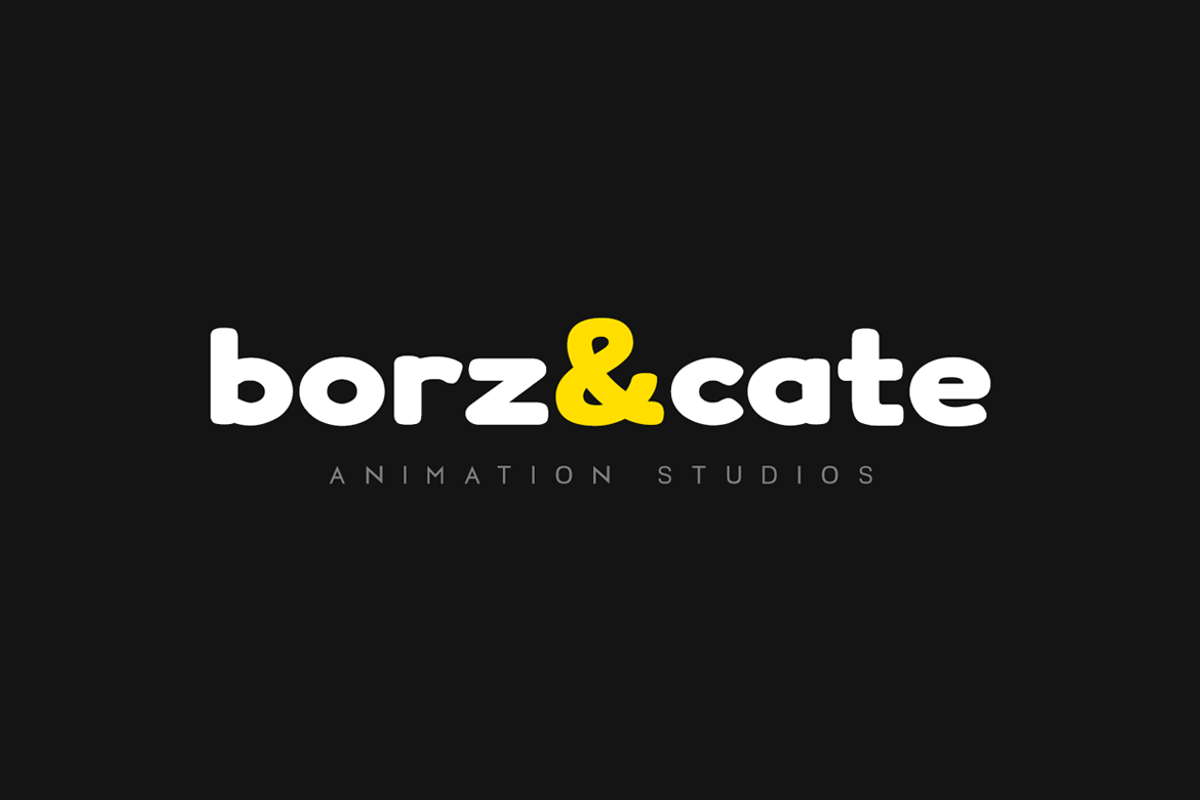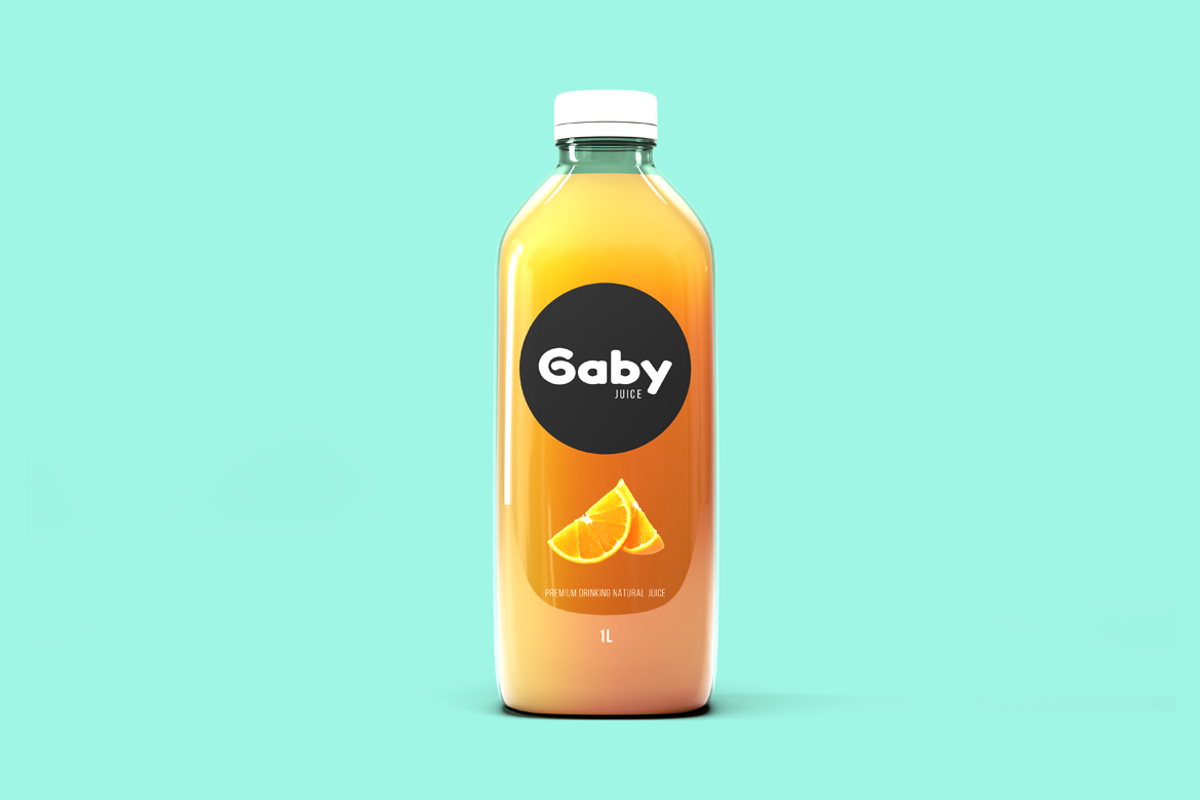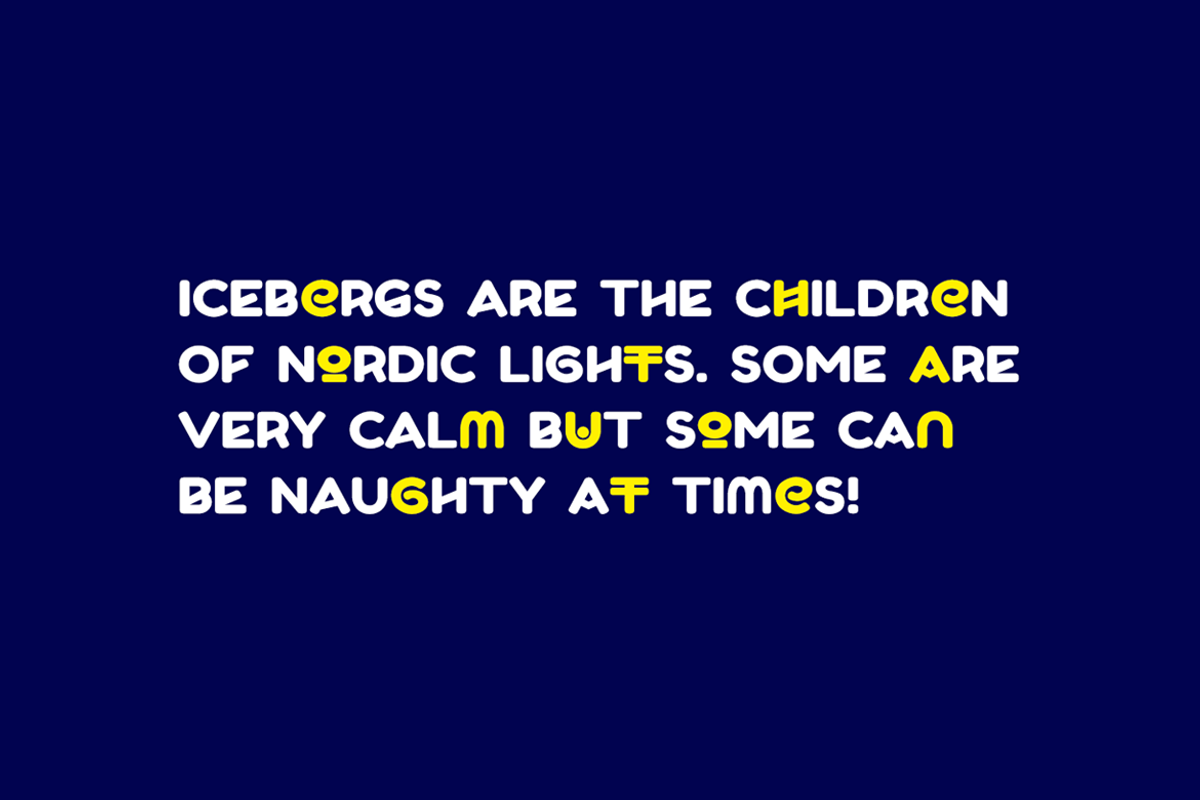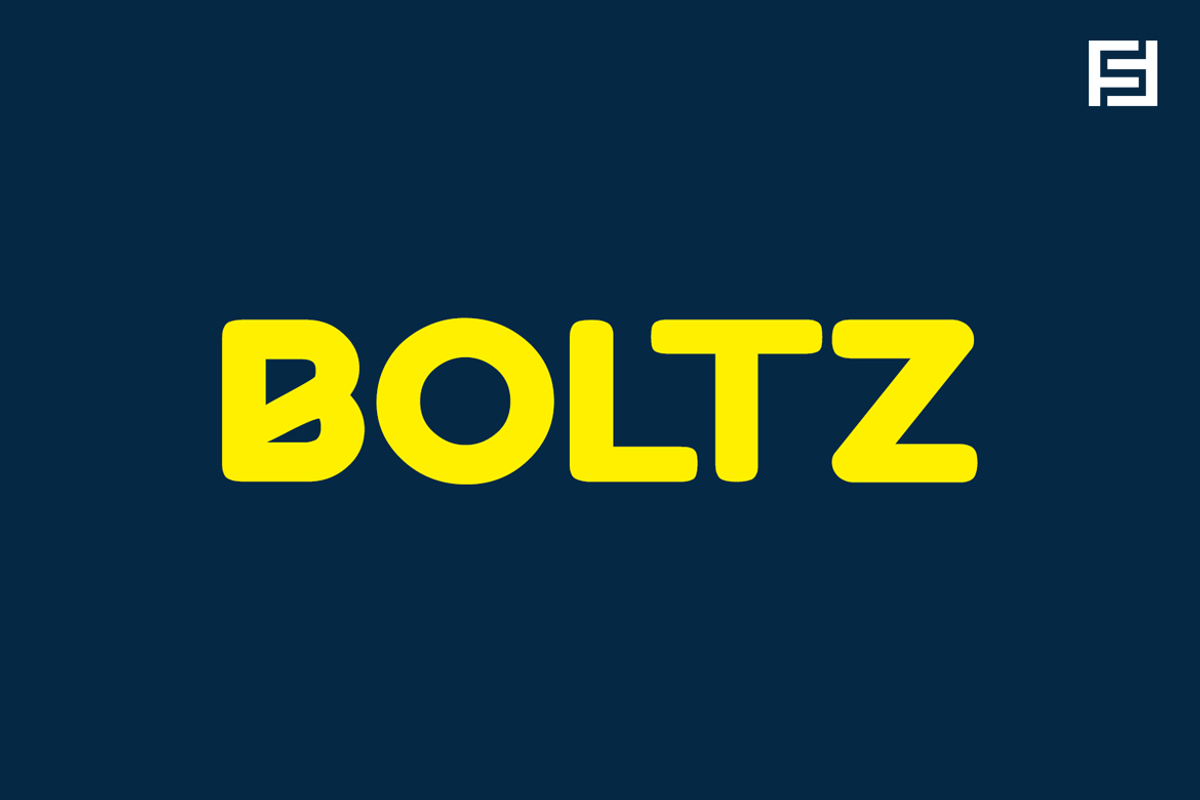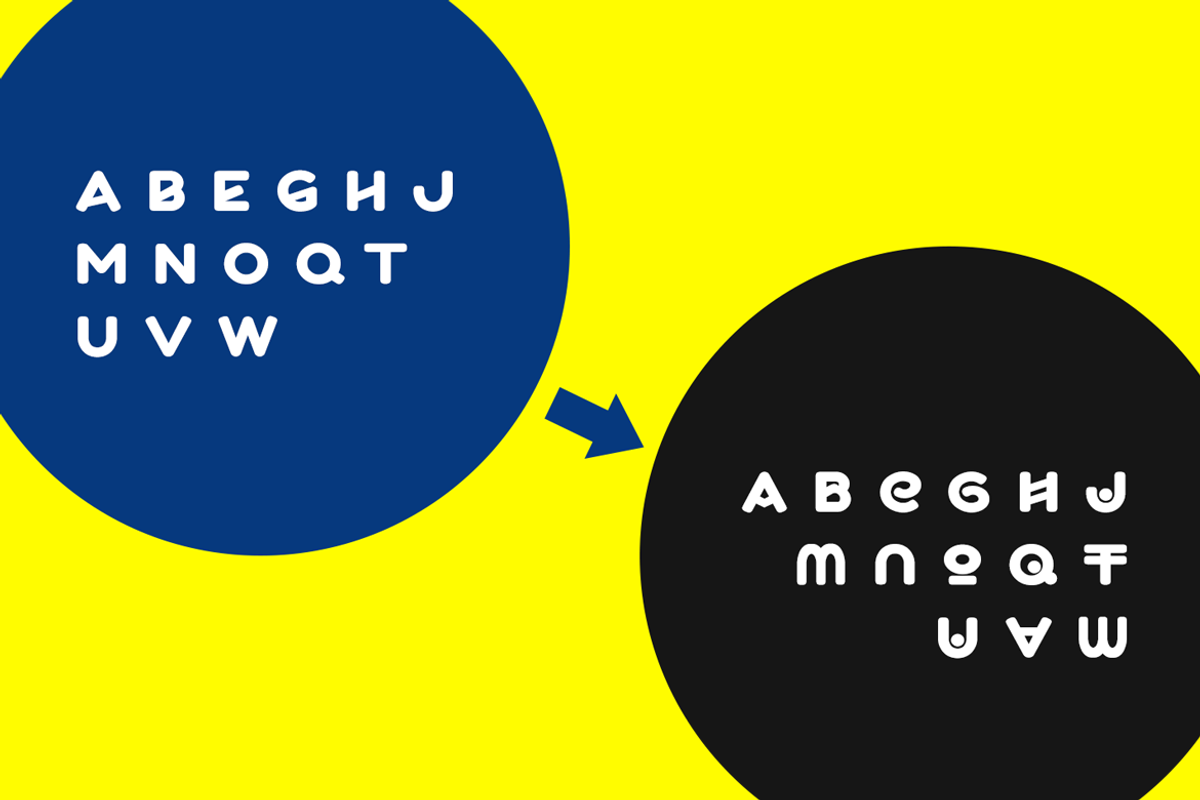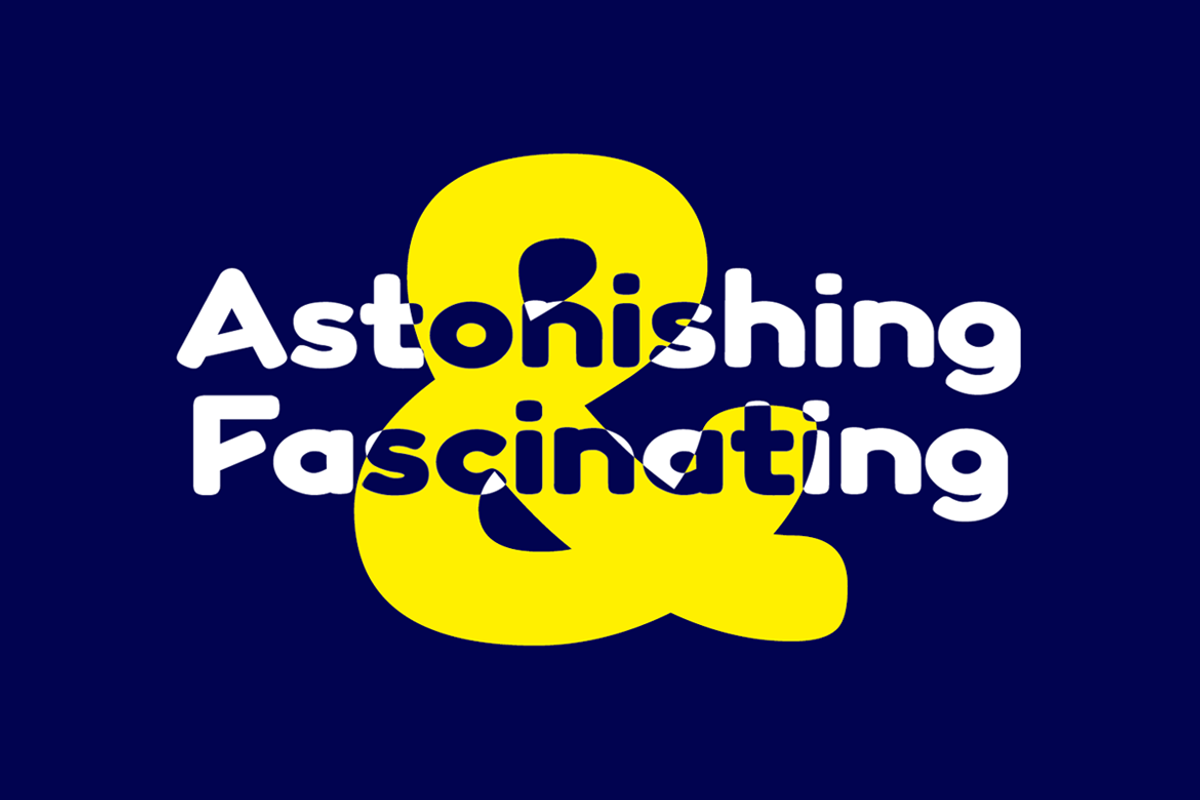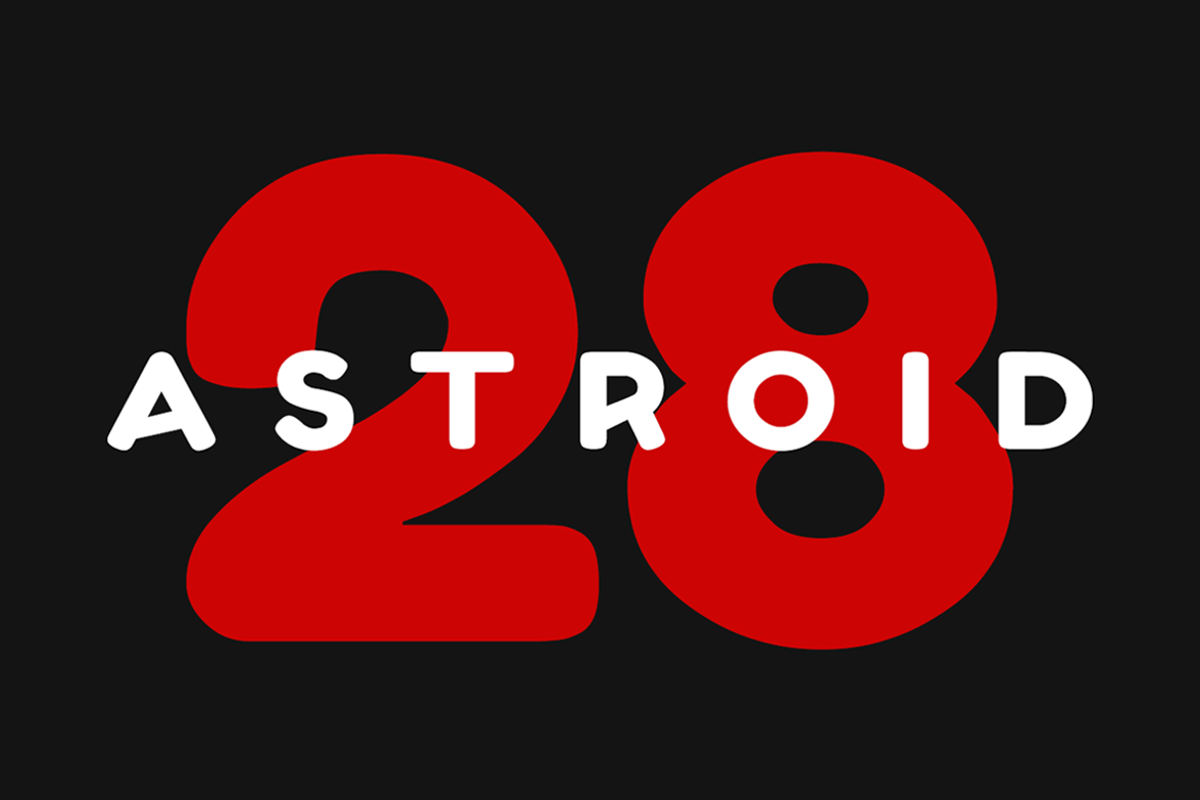
BOLTZ - Unique Display Typeface
Boltz is a simple & cute sans-serif typeface perfect for headlines, big text, branding, logotypes & display usage. This font can be excellent choice for creating outstanding logos, promotional content and marketing graphics that can bring uniqueness and freshness.
The typeface comes with an extensive handmade collection of Stylistic Alternatives for 14 uppercase letters which makes it easy to create unique monograms, logo and identities with these combinations. Please see the examples shown above to get an idea about the capability of this typeface.
The typeface comes with Extended Latin character sets including Western European, Central European and South Eastern European character sets.